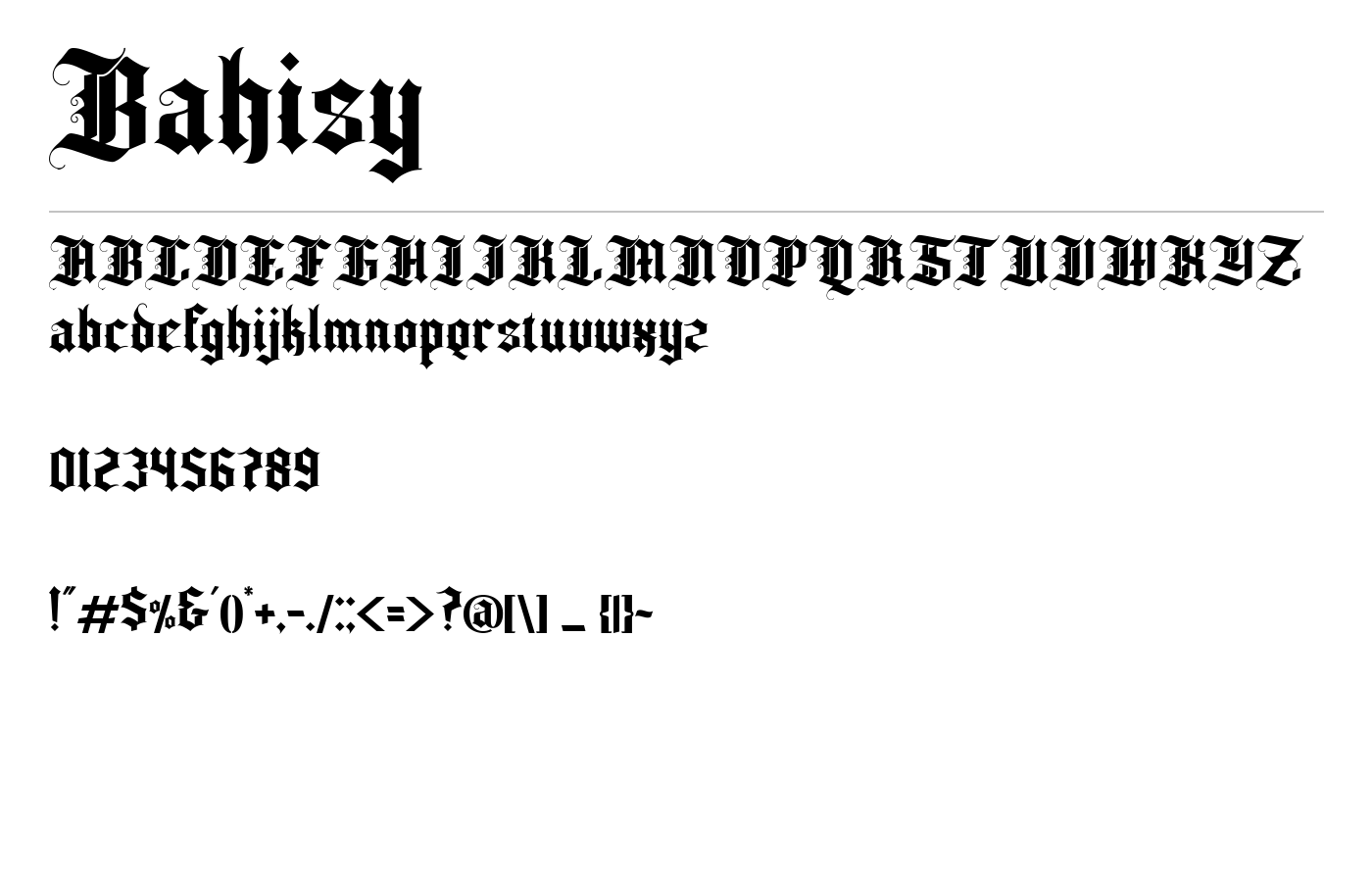
Bahisy is a bold, blackletter serif font with a strong, vintage Gothic style characterized by thick, angular strokes and decorative flair. It features high contrast and intricate sharp details, making it ideal for creating dramatic headlines and logos that evoke tradition, authority, and a historical or medieval mood. This font works best in branding, posters, and editorial designs where a distinctive, old-world impression is desired.